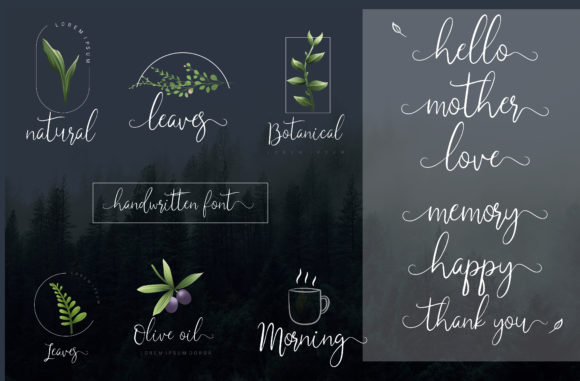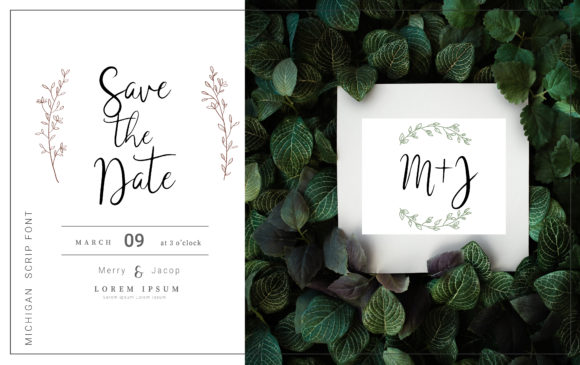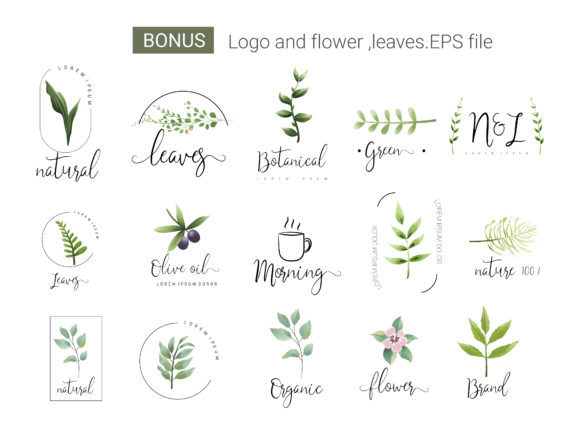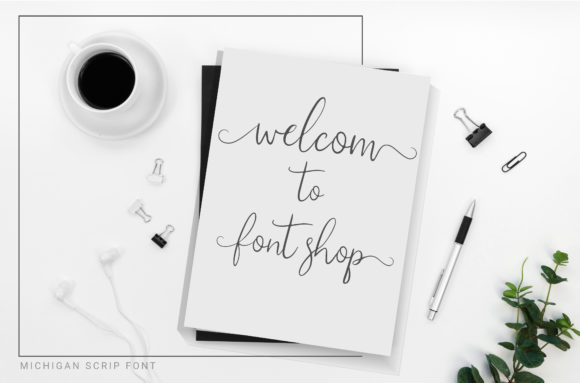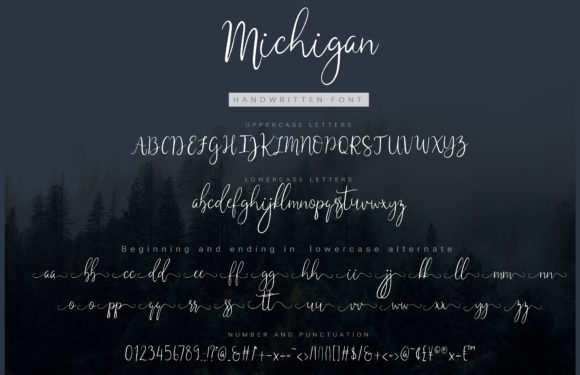
Michigan Font
About Michigan Font
Michigan is a beautiful handwritten font. It brings cute botanical logos that you can use to brighten up your crafting projects. Fall in love with its authentic feel and use it to create gorgeous wedding invitations, beautiful stationary art, eye-catching social media posts, and cute greeting cards.